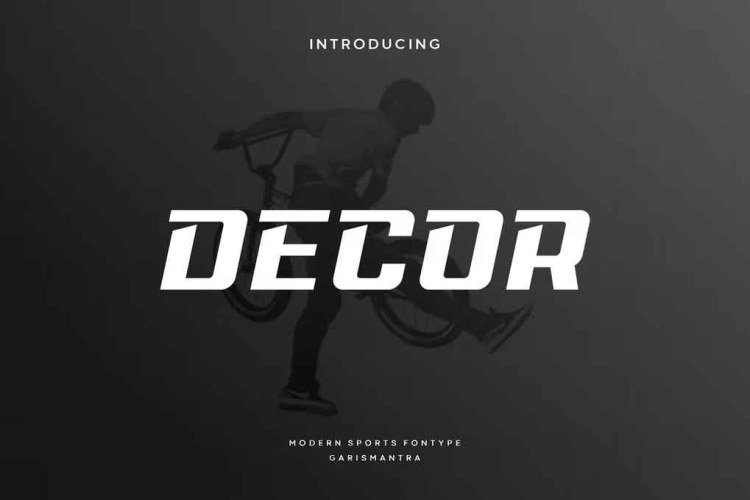
Decor Font
Decor an awesome sports font with wide italic fonts, modern cutouts, and dynamic slant. Ideal for fast car racing sports titles, bmx, cycling, automotive game logos and…
Decor an awesome sports font with wide italic fonts, modern cutouts, and dynamic slant. Ideal for fast car racing sports titles, bmx, cycling, automotive game logos and monograms or other modern dynamic text. Decor compare favorably with legibility and size, creating the effect of power and speed. Designed as a fast and dynamic font, but with a slightly different font design, check it out and grab it right away.
Where Decor Font works best
Event & seasonal design
Decor Font suits themed posters, holiday campaigns, festival identities and party invitations.
Game & entertainment titles
Decorative letterforms are a natural fit for game logos, movie-style titles and merch.
Packaging accents
Use Decor Font sparingly for product names or flavour labels that need personality.
What is Decor Font good for?